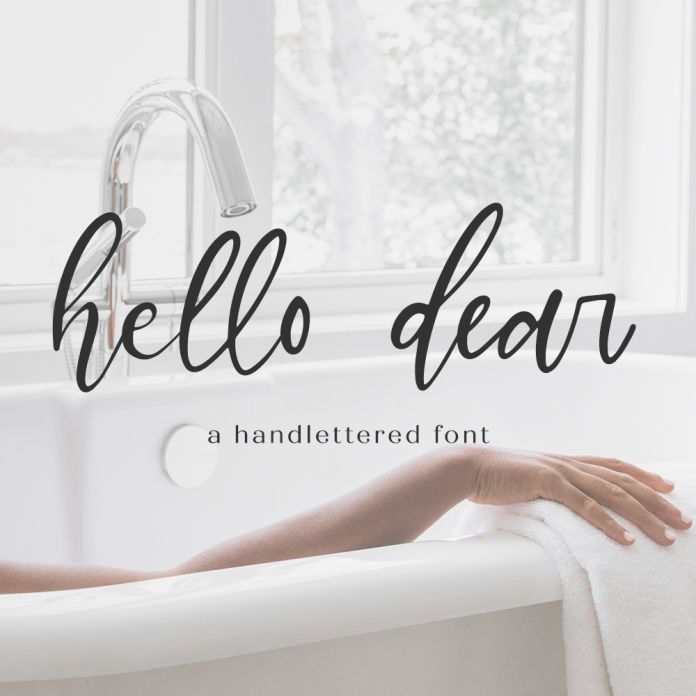
Hello Dear Script Font
Introducing Hello Dear Script, a feminine cursive font. This stylish font features a messy, casual look and includes a full set of lowercase alternates and some common double letter ligatures. Hello Dear Script is best for: - logos + branding - website design + website accents - think design blogs, travel blogs, fashion blogs, & more - clean print design, like magazines + flyers - header elements that need handwritten touch - quote graphics for social media Hello Dear includes: - full upper + lowercase characters - numbers + punctuation - Western European Language Support - 26 lowercase alternates - 21 ligatures - ar, bb, cc, cr, dr, ee, er, ff, gg, ir, ll, mm, nn, oo, or, pp, rr, ss, tr, tt, ur - PUA-encoding